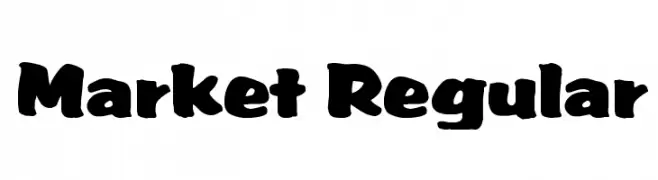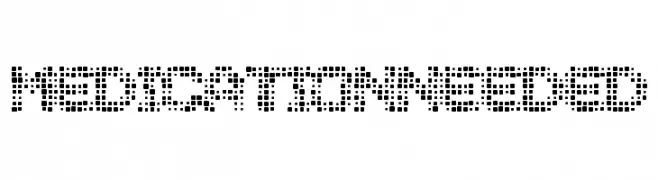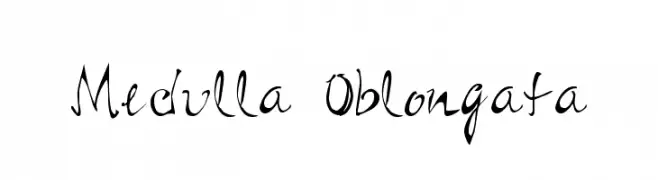
( Fonts by Typearound )
A playful, hand-drawn font with a quirky and dynamic style.
A bold, italicized font with sharp angles and a dynamic, modern style.
( Fonts by Paul Reid - tracertong.co.uk )
A dot matrix font with a retro digital display style.
( Fonts by www.tepidmonkey.net )
A playful, rounded, and handwritten-style font with a friendly vibe.